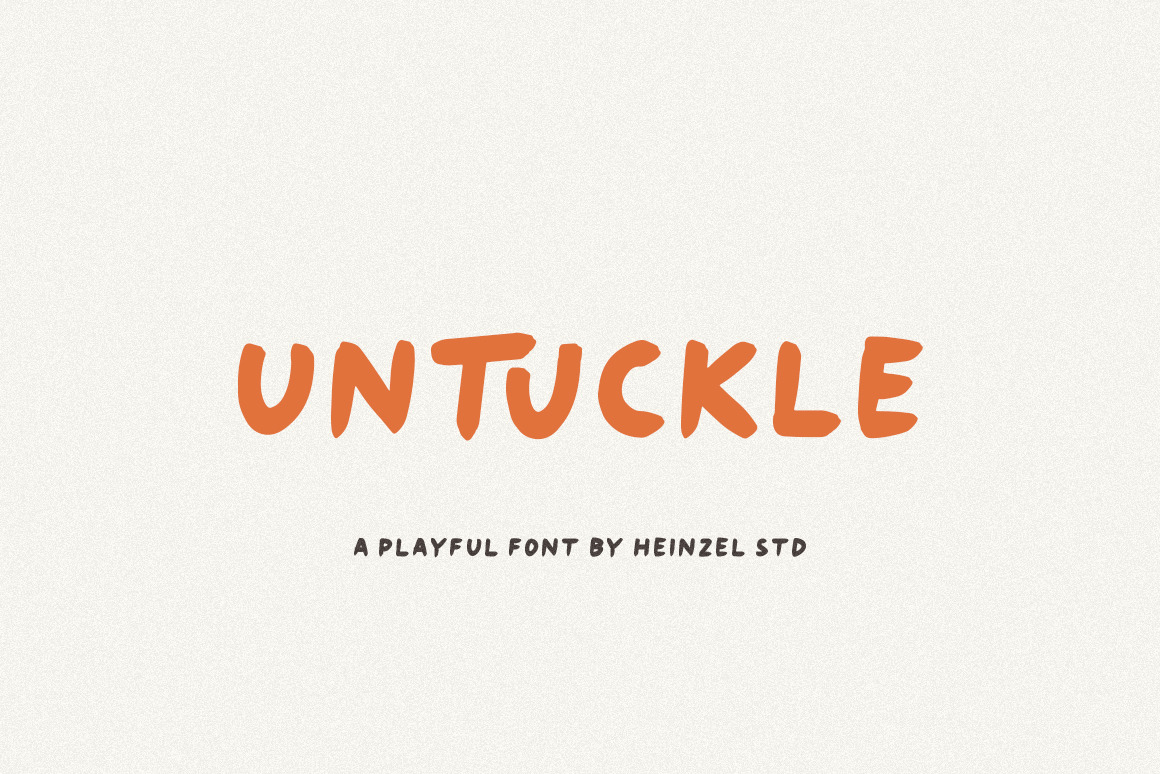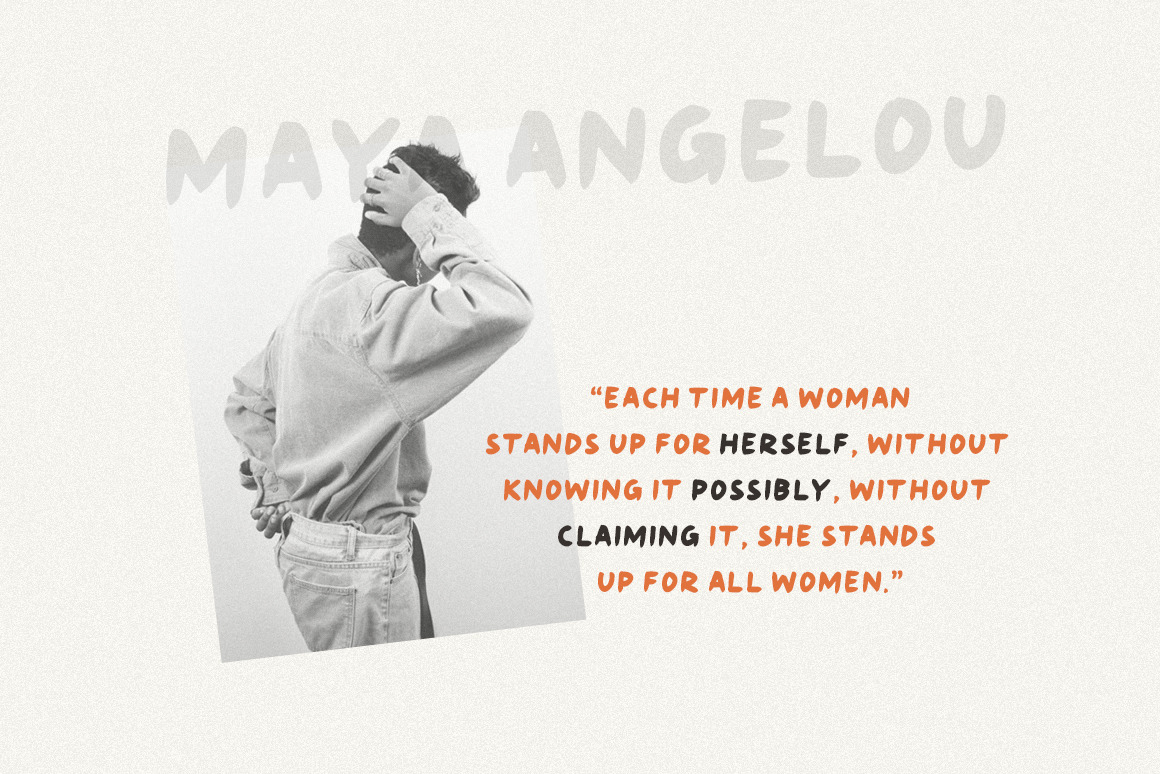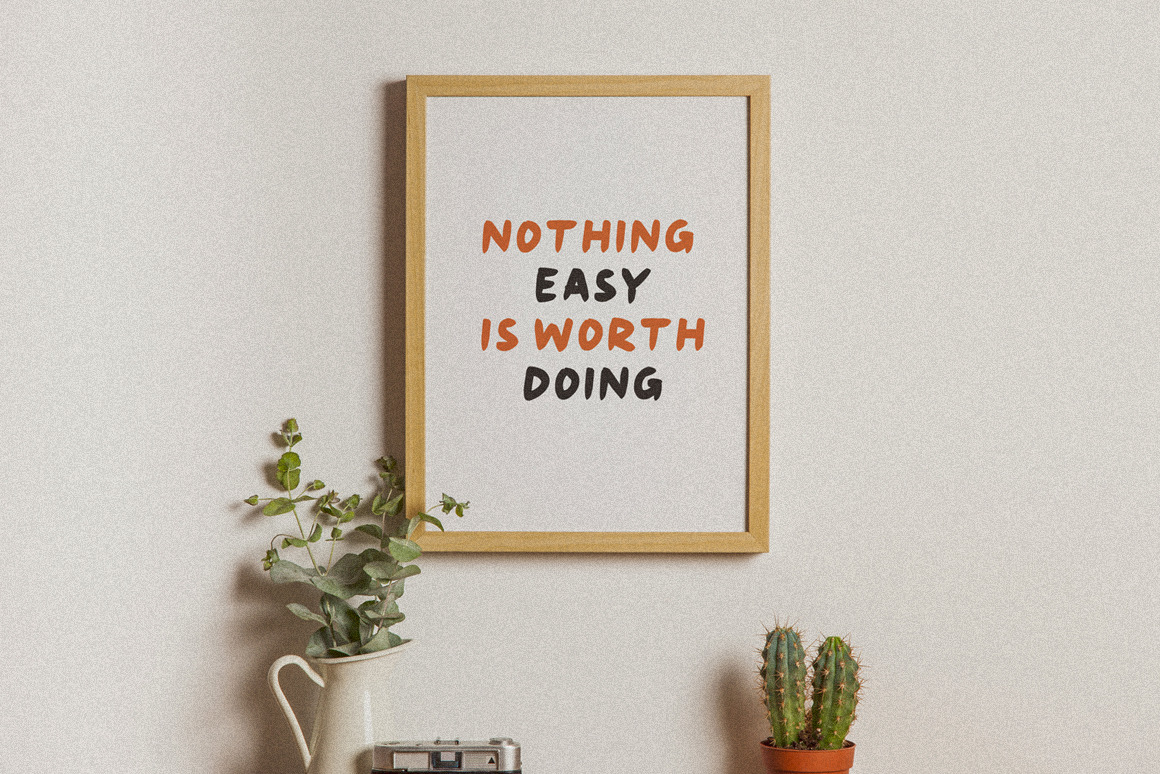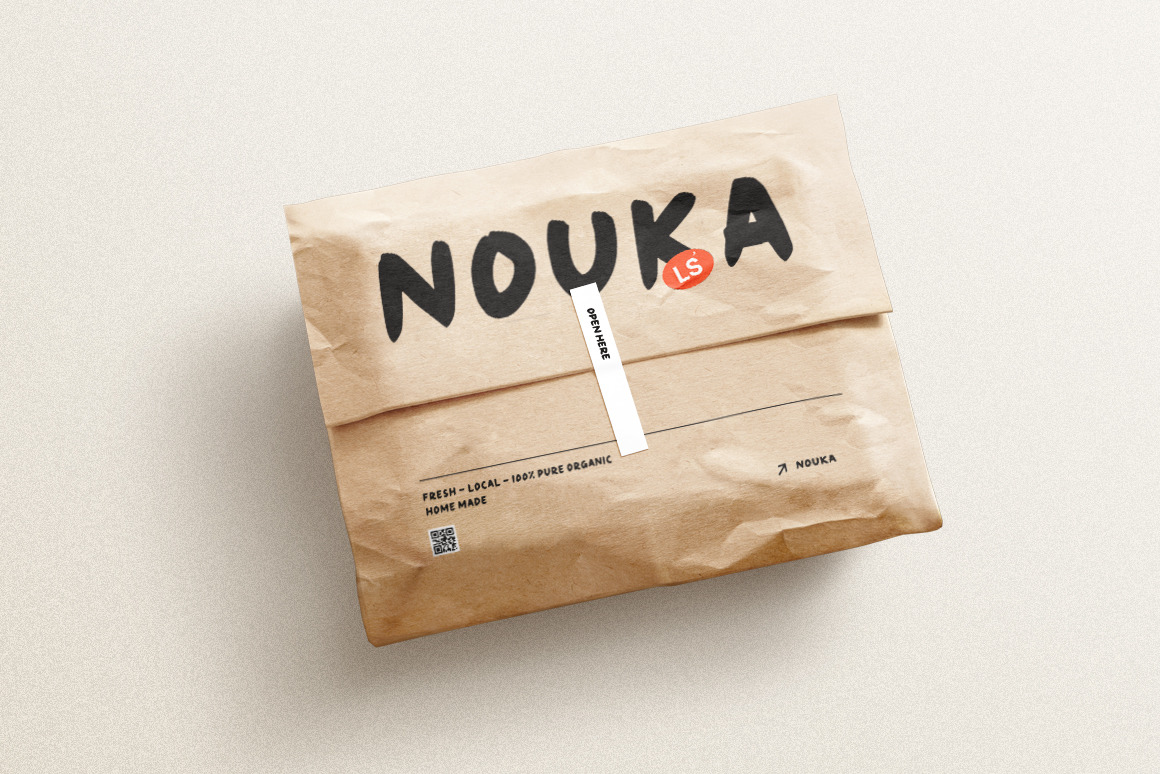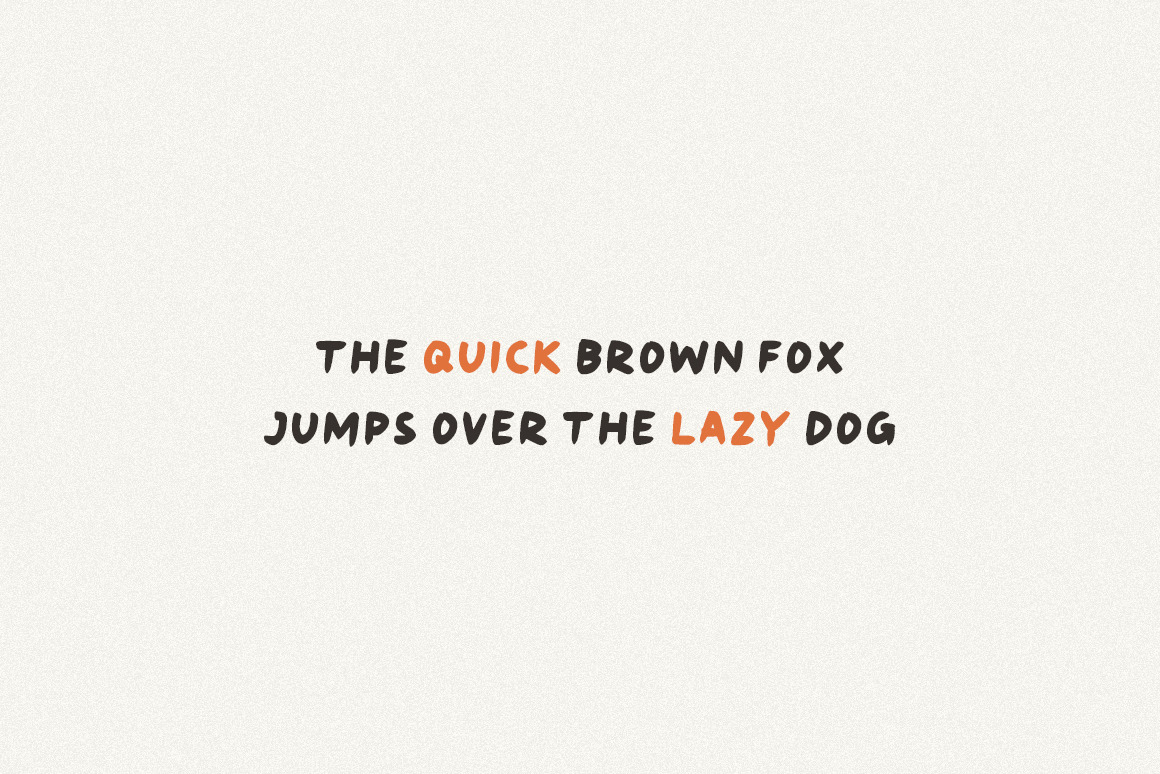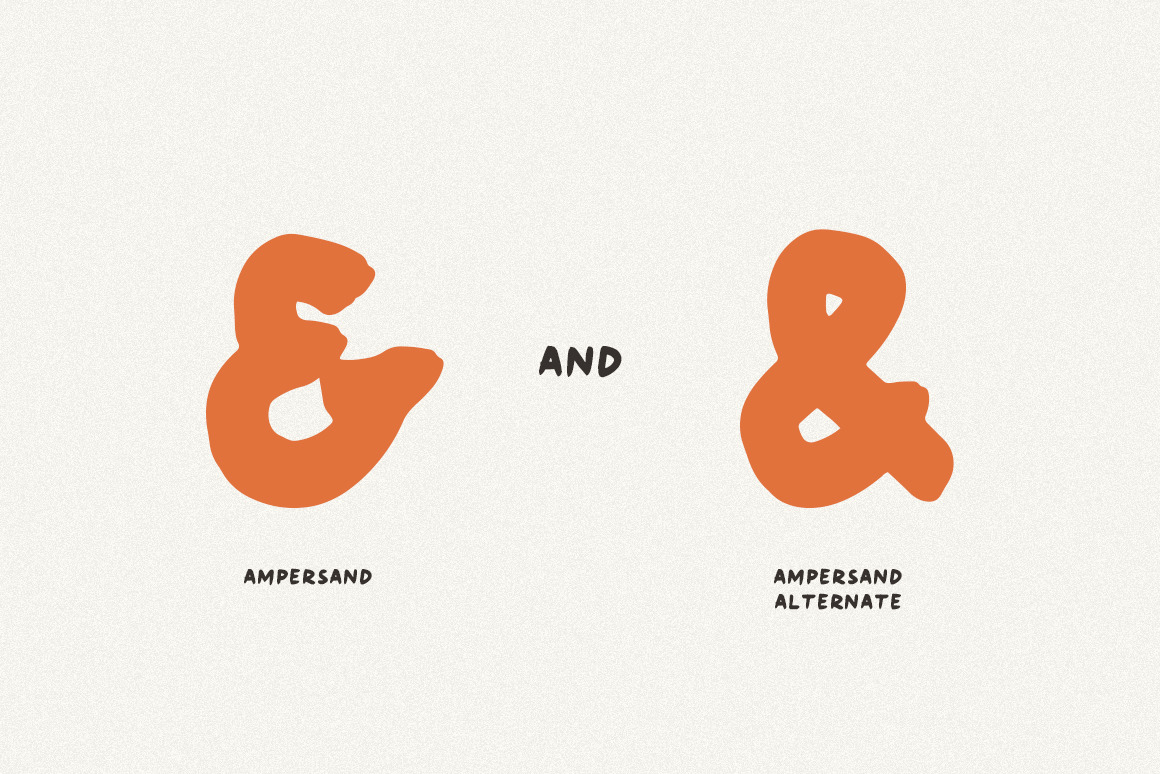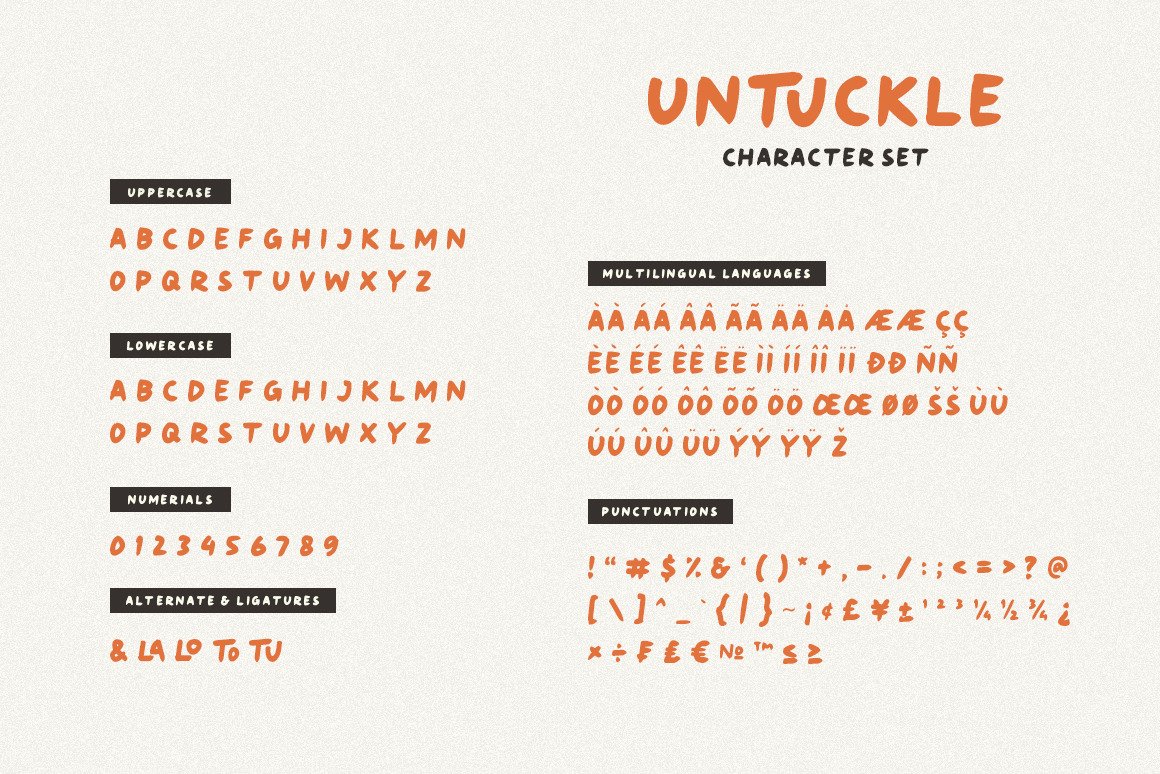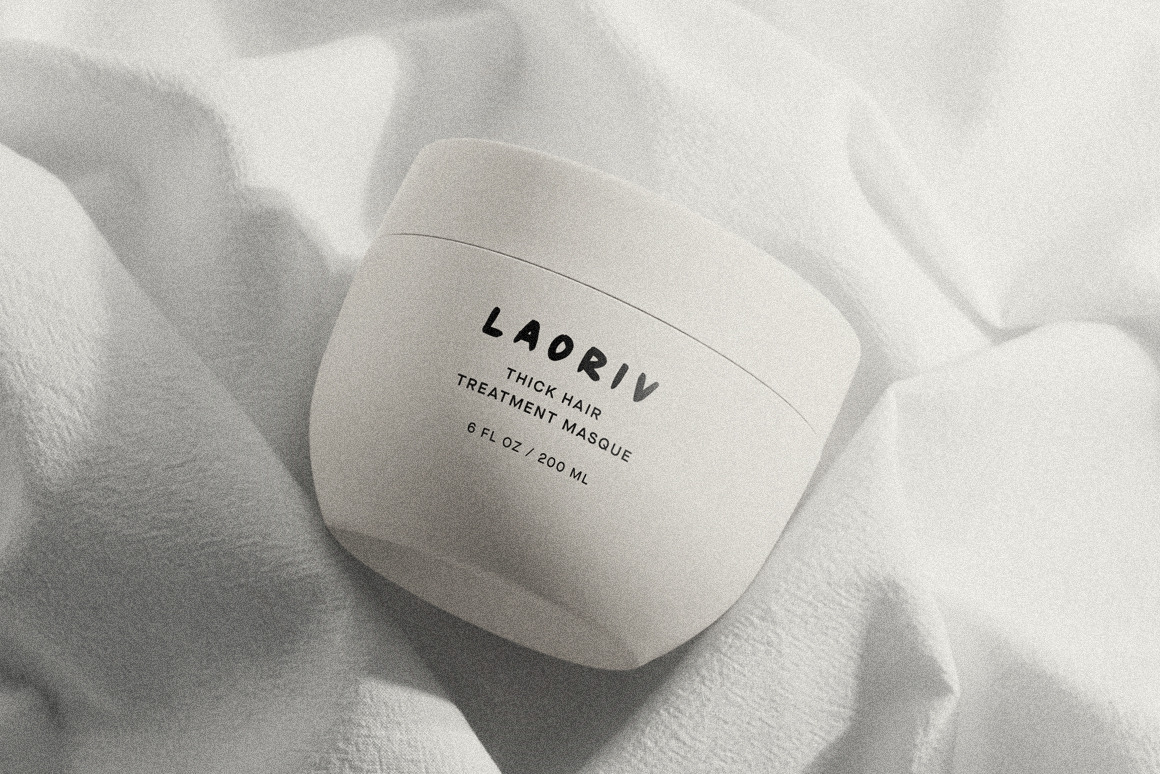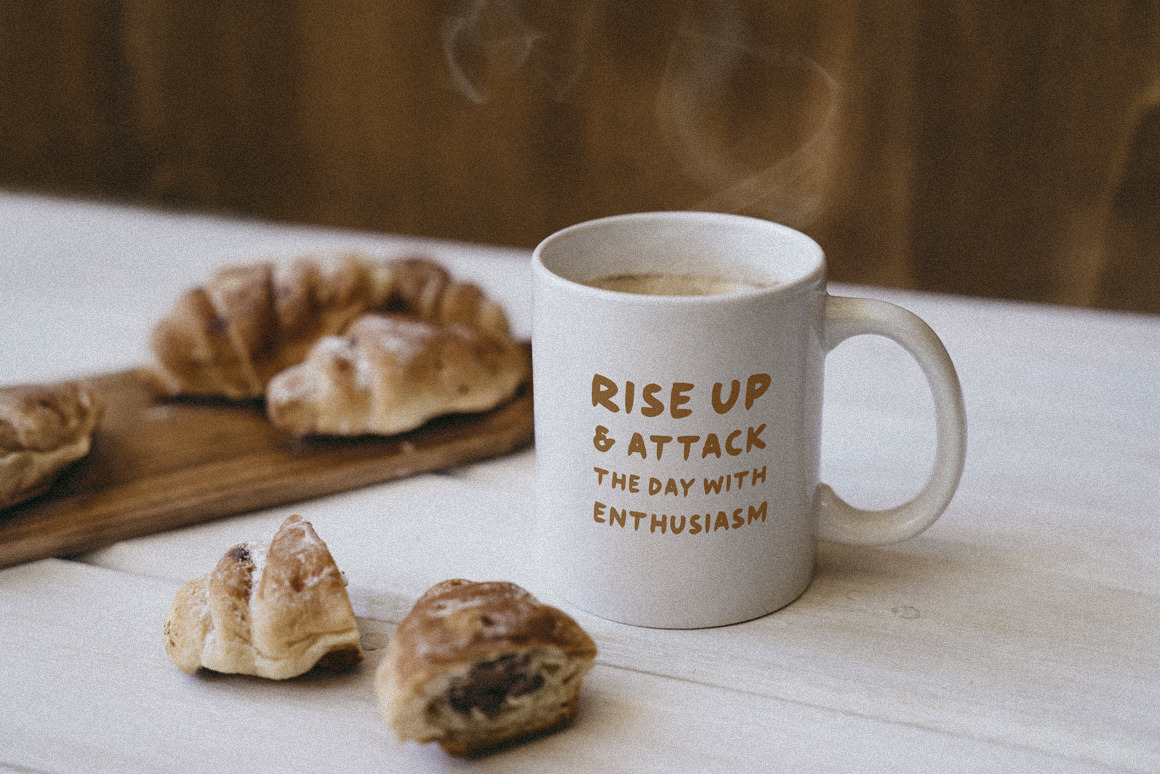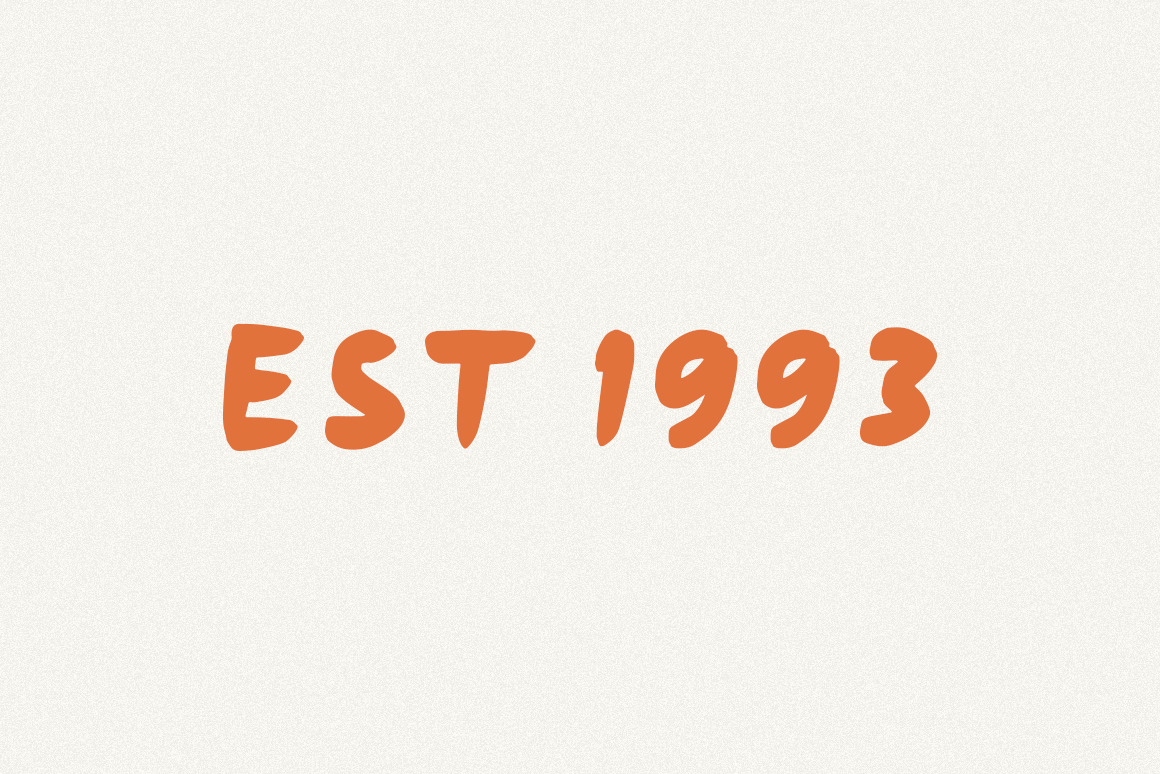
Untuckle Playful Font
Untuckle is a playful and natural handwritten font. This font is perfect for creating logos, watermarks, branding, wedding invitations, quotes, taglines, or anything else. Let's make something beautiful project with this.
Untuckle Features :
- Uppercase and Lowercase
- Numerals and Punctuations
- Ligatures and Alternate